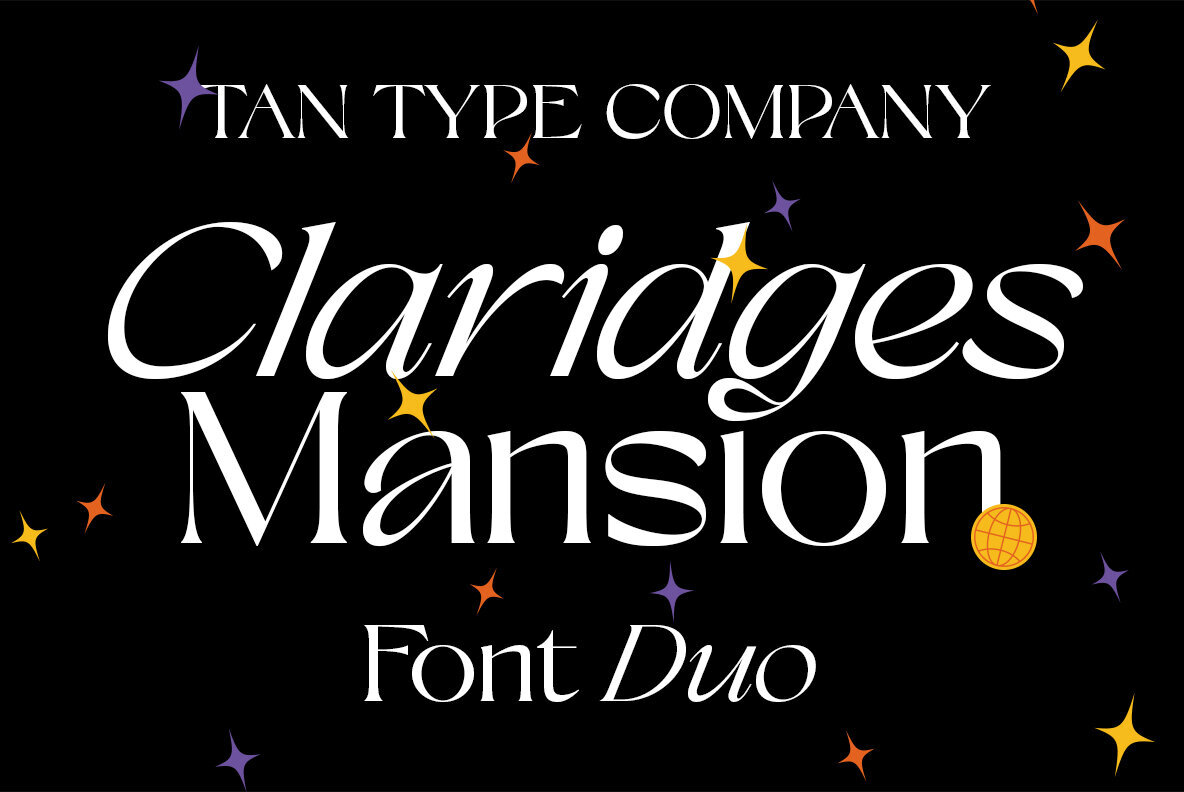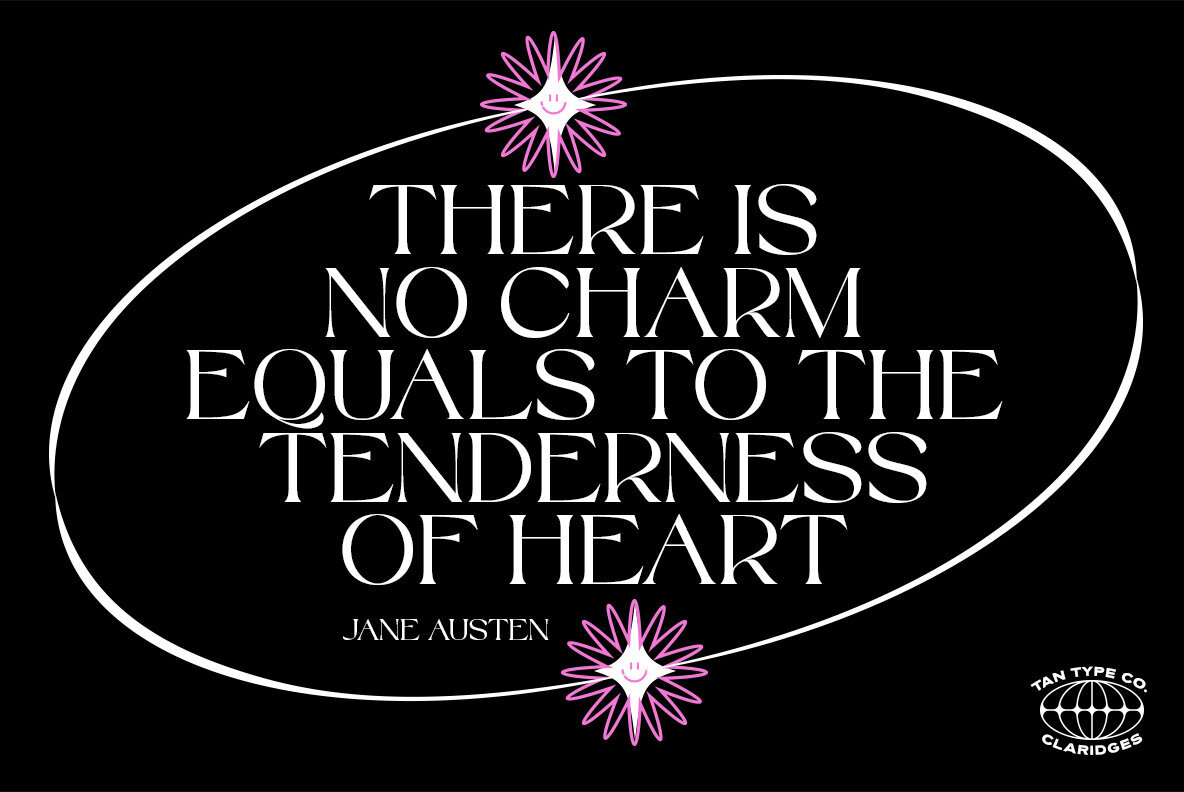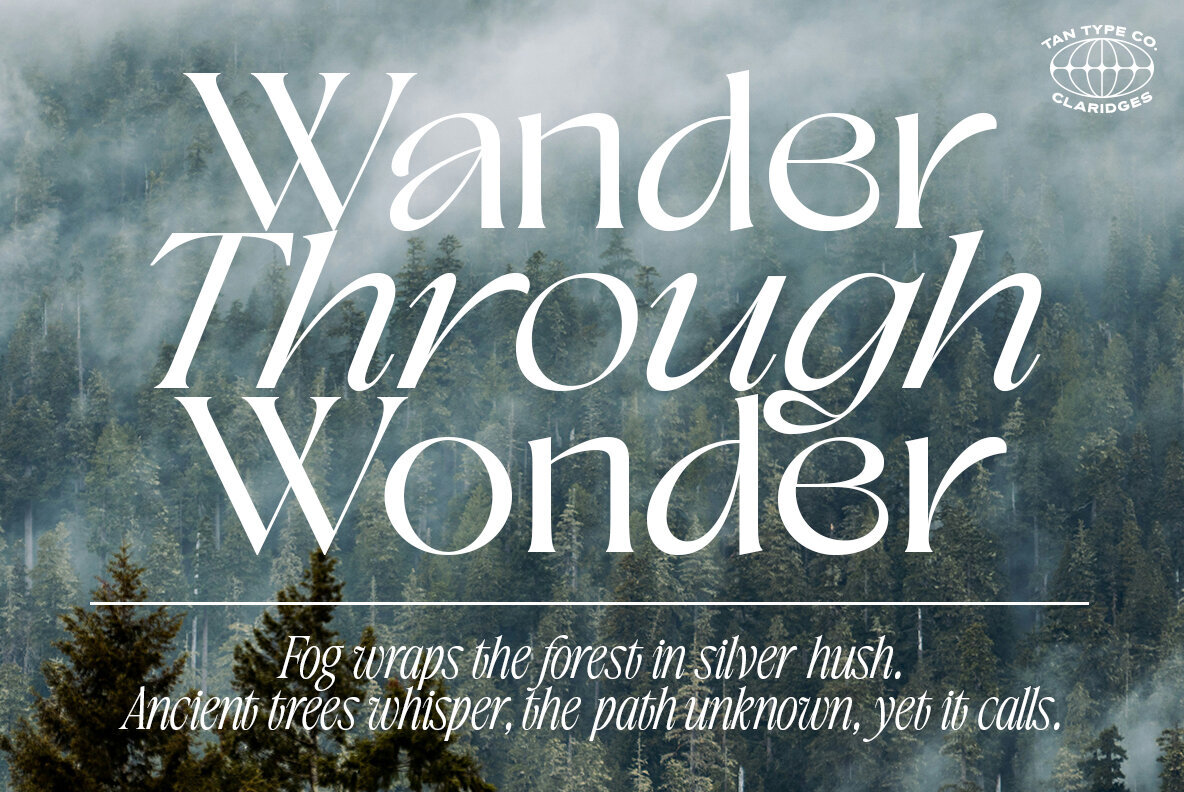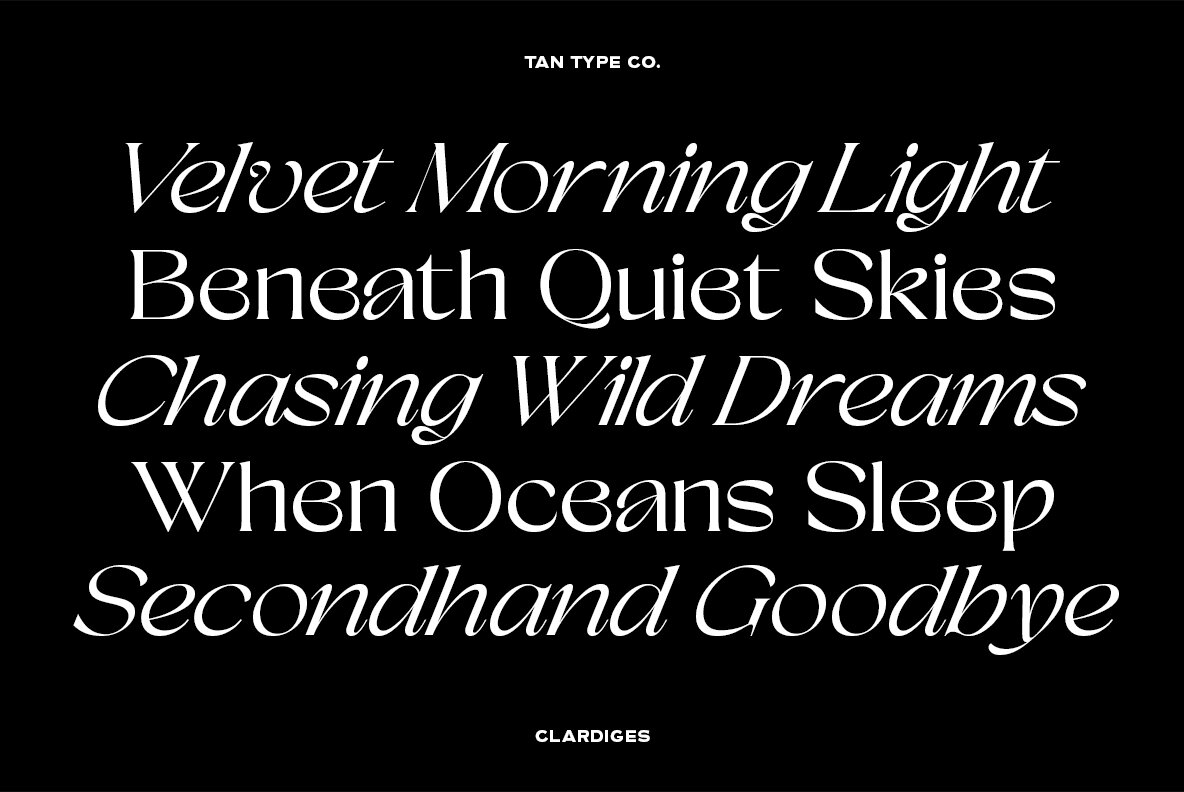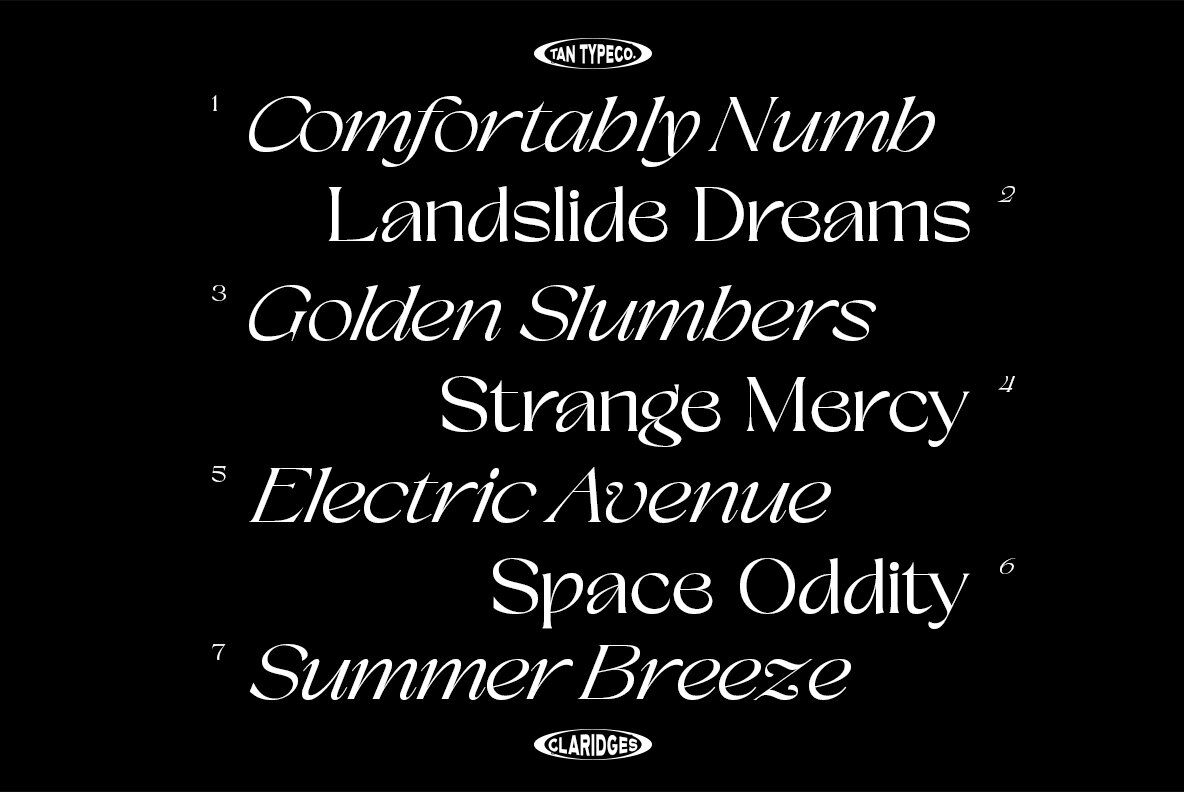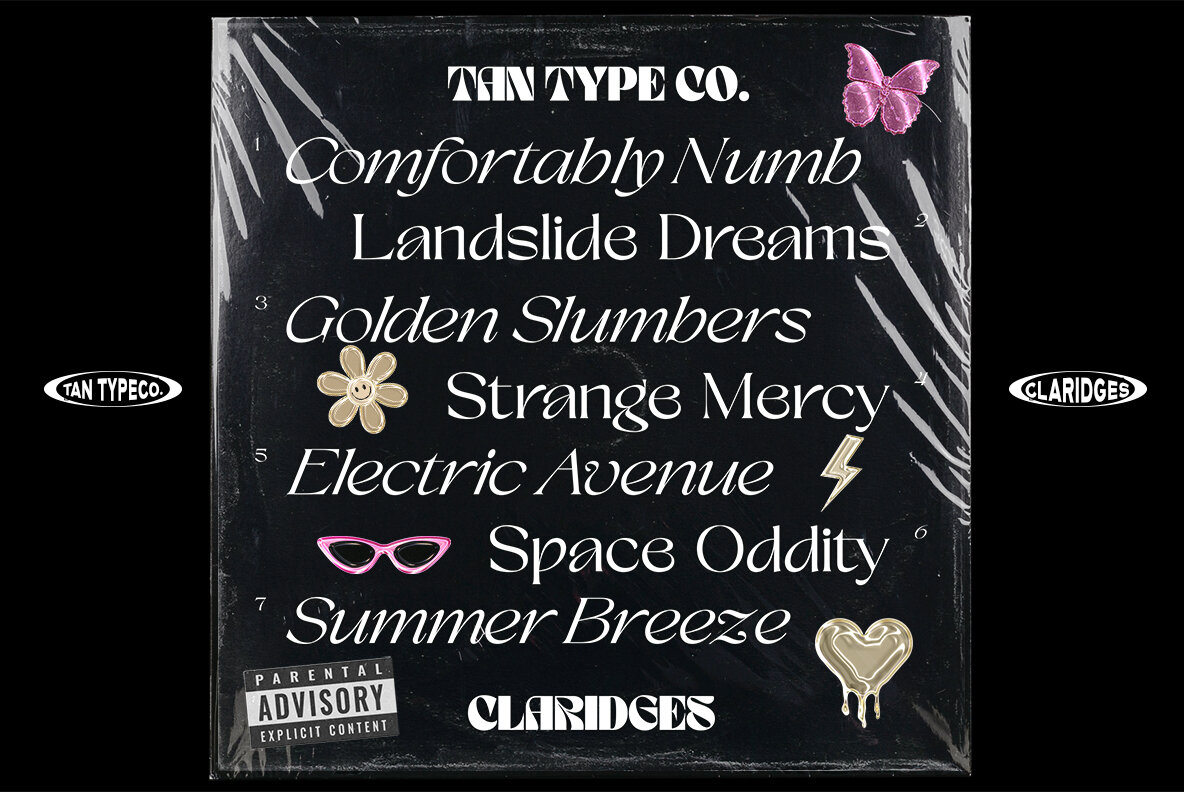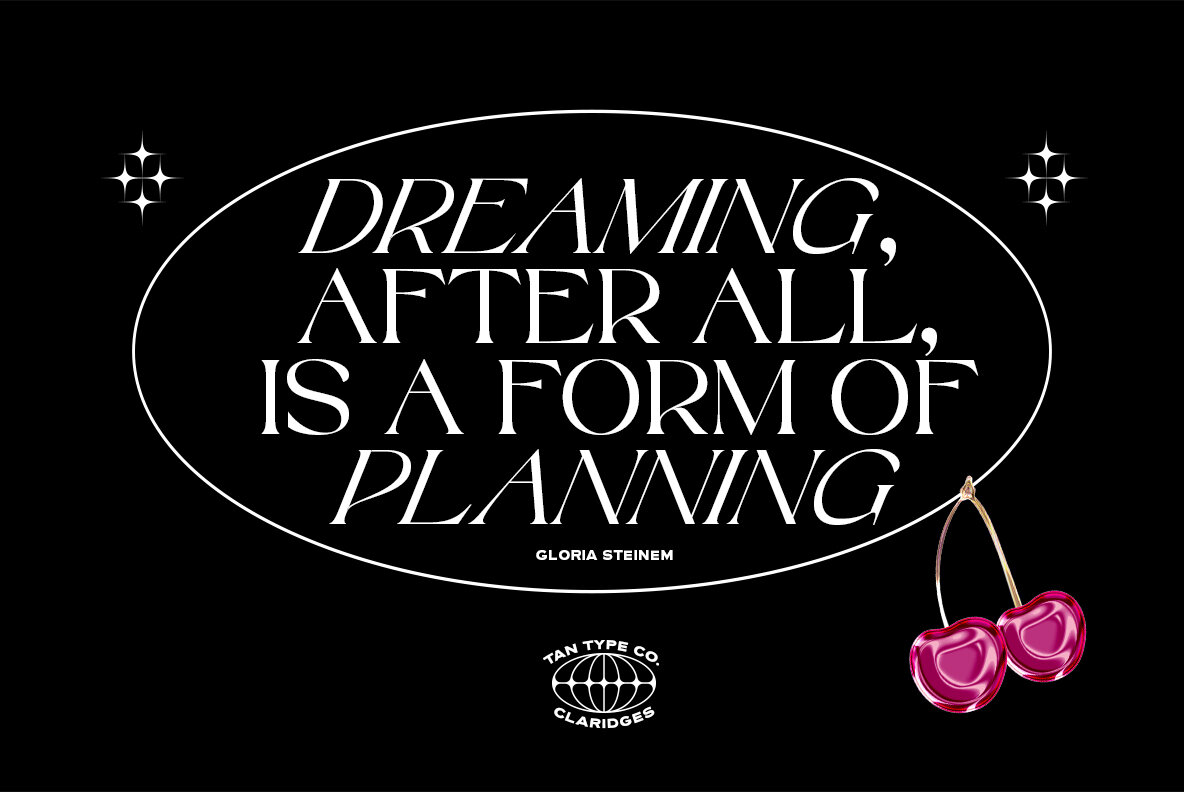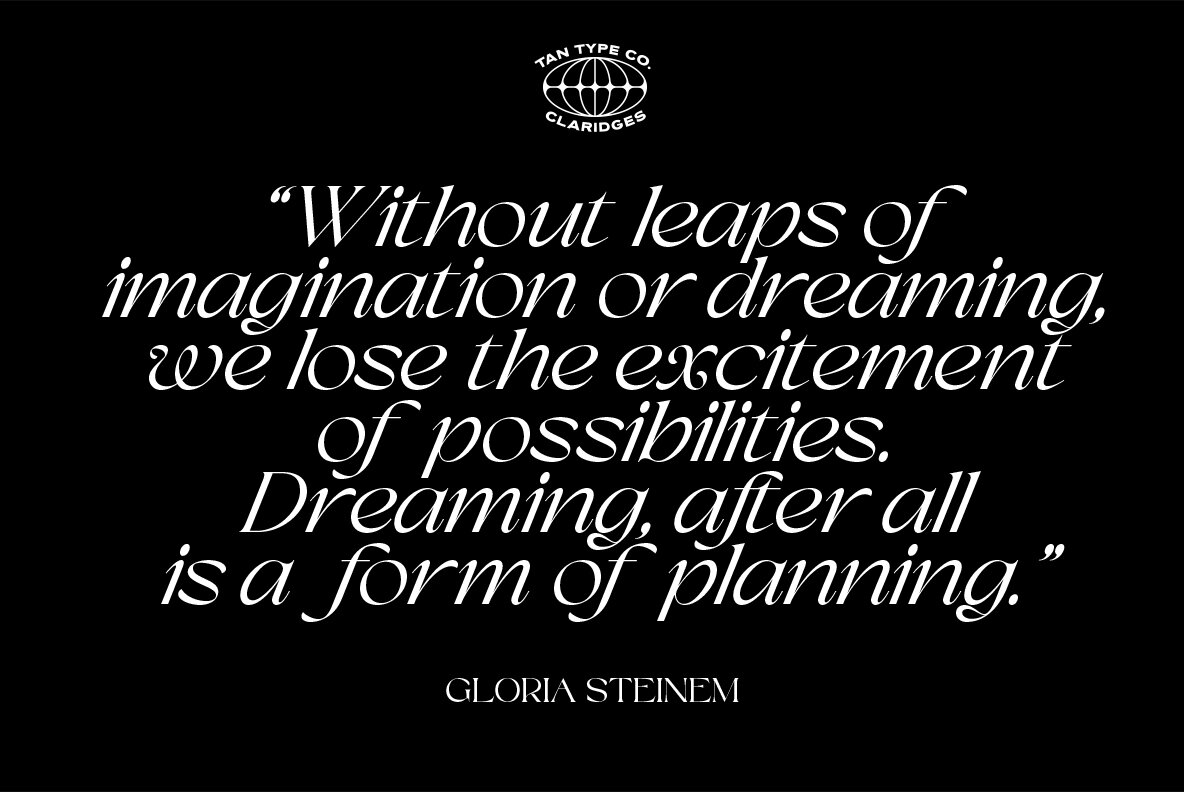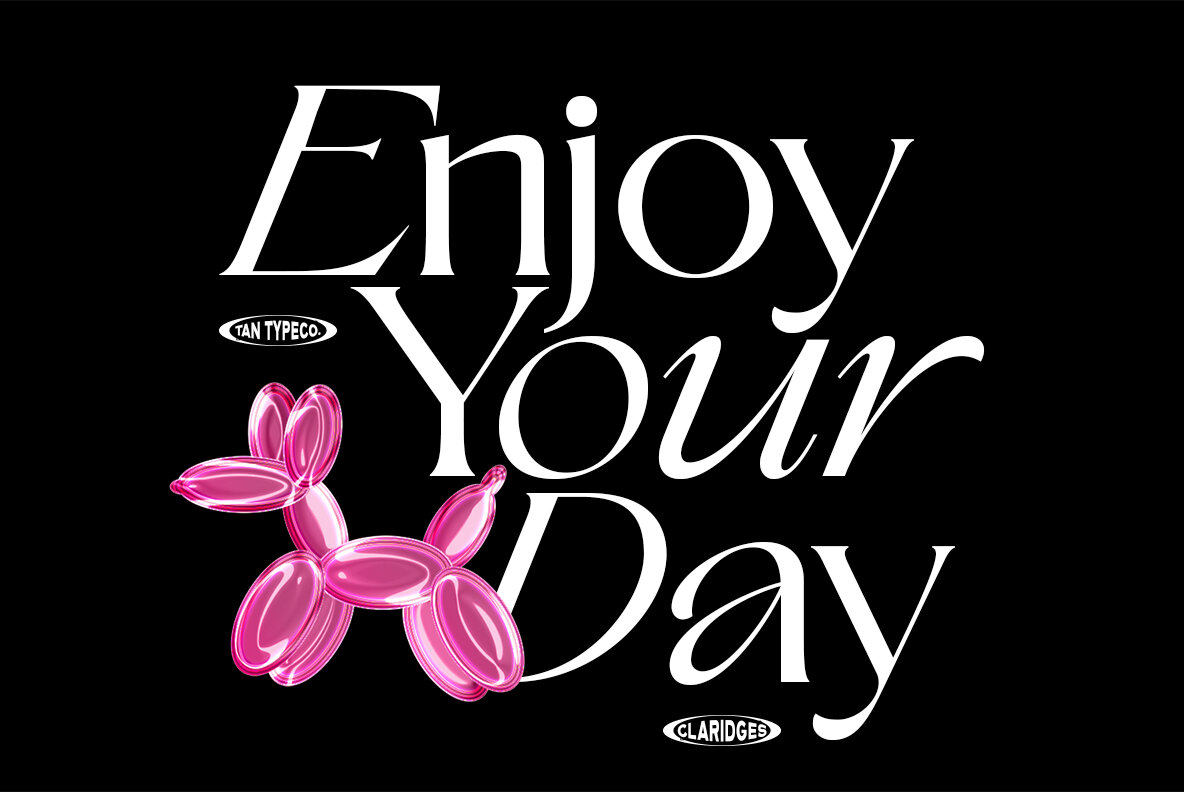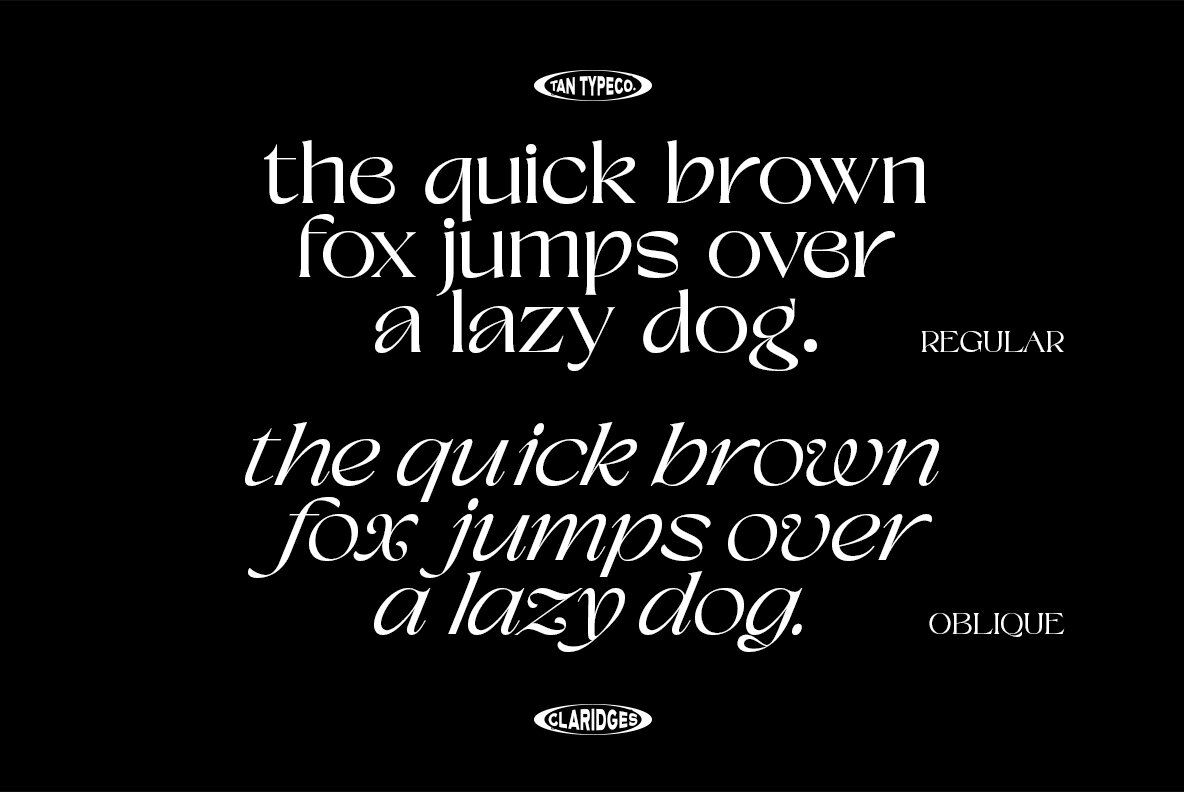
TAN CLARIDGES Font
TAN CLARIDGES Regular
TAN CLARIDGES Oblique
Claridges embodies an elegant simplicity that enhances sophisticated design projects. Its graceful forms suggest traditional roots without rigidity, striking a balance between refinement and subtle luxury.Claridges: Classic Typeface of Timeless Elegance